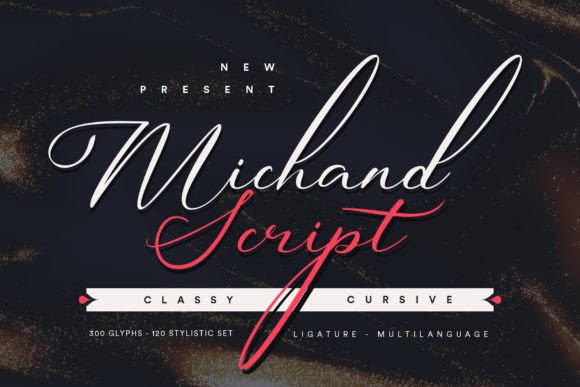
Introducing Michand Script, a captivating modern calligraphy font that breathes beauty and grace into your digital creations. Designed by the skilled hands at Storictype, Michand Script is a script font like no other. It whispers elegance and sophistication into every letter, making it the ideal choice for those seeking a touch of timeless beauty in their designs.
Immerse yourself in the world of Michand Script, where every curve and swirl is a testament to the art of calligraphy. Let your words dance across the screen or printed page, transformed into delicate masterpieces that evoke a sense of charm and wonder. This is not just a font; it's a symphony of lines and shapes, a visual melody that will captivate your audience.
With Michand Script, you can effortlessly elevate your wedding invitations and save-the-date cards, imbuing them with a touch of romantic allure. Imagine the joy and anticipation of your guests as they receive these exquisite creations, each letter a testament to the love and commitment you share.
But Michand Script's versatility extends far beyond the world of weddings. Its graceful strokes add a touch of femininity and charm to branding and logos, evoking a sense of trustworthiness and professionalism. Postcards, letterpress addresses, and titles take on a new life when adorned with Michand Script, their messages enhanced by the font's inherent elegance.
Whether you're a creative professional, a passionate hobbyist, or simply someone seeking a touch of beauty in their digital world, Michand Script is the perfect choice. Let your imagination run wild as you explore the endless possibilities that this remarkable font offers. Unleash your creativity and watch as your words and designs transform into stunning works of art.
So why settle for ordinary fonts when you can indulge in the extraordinary? Embrace the captivating allure of Michand Script and witness the magic unfold before your eyes. Let your designs blossom with elegance, your words ignite with passion, and your creations leave an unforgettable mark on the world.